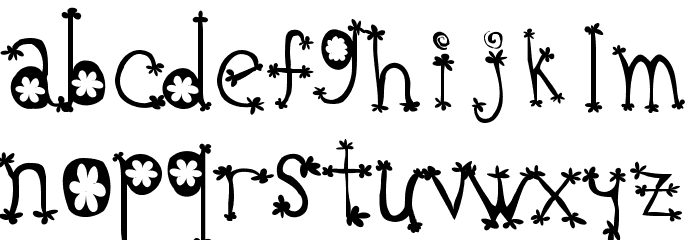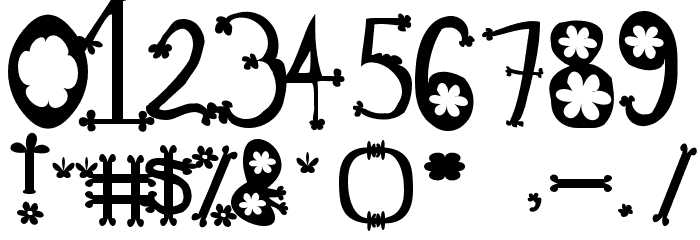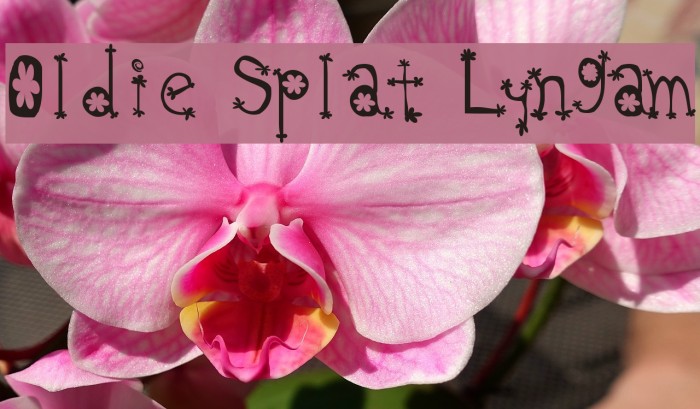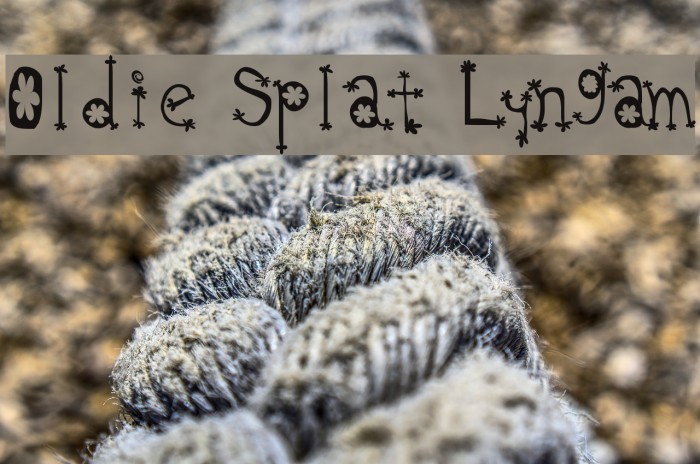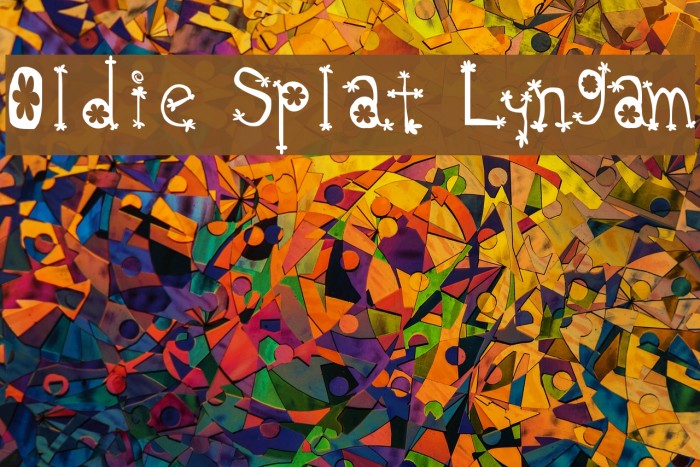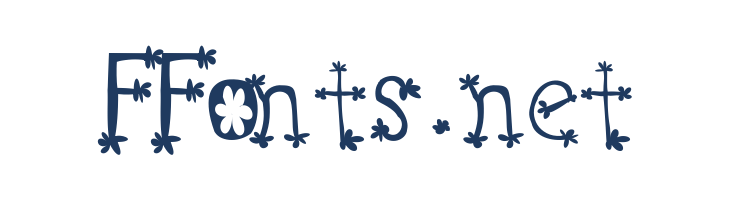
Oldie Splat Lyngam Font
This whimsical and decorative font features playful floral elements integrated into the characters, giving it a unique and eye-catching appearance. The uppercase letters are bold and embellished with flower motifs, while the lowercase letters maintain a more subtle yet consistent style. Numbers and special characters follow the same decorative theme, making the font cohesive and visually engaging. The overall design is quirky and artistic, perfect for projects that require a touch of creativity and fun. The font's distinct style makes it suitable for children's books, playful branding, or any design that aims to capture attention with its imaginative flair.
A whimsical, floral-themed decorative font with playful and artistic elements.
- Proposed Projects: Ideal for children's books, playful branding, creative invitations, and artistic posters.